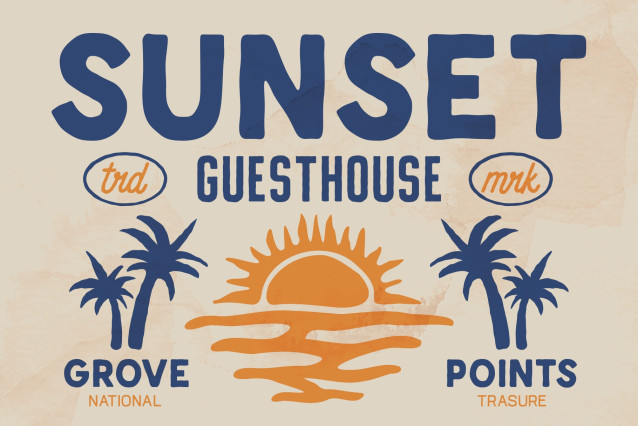
Zesty Spirit Bold Font
Zesty Spirit Bold Font a font family that embodies the spirit of laid-back days, salty air, and rugged adventures. Inspired by vintage travel posters and retro surf culture, Mellow Soft brings a quirky, hand-drawn charm to your design toolkit.
This typeface isn’t just about letters; it’s about texture. Each character is designed with a “rough stamp” finish, giving your work an instant organic, tactile feel that looks like it was printed on old paper. Whether you are designing for a surf brand, a coffee shop, or an outdoor apparel line, Mellow Soft delivers that authentic, perfectly imperfect look.